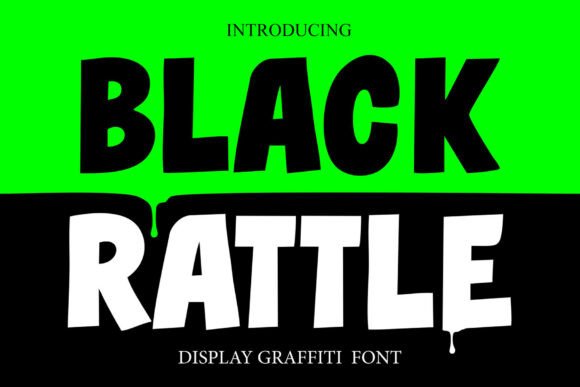
Unleashing Urban Energy: A Deep Dive into Black Rattle Font
I’ll never forget the design struggle that led me to discover Black Rattle Font. I was working on a project for a streetwear brand, and I needed a font that could capture the raw, edgy vibe of urban culture. After hours of scrolling through font libraries, I stumbled upon Black Rattle, and it was love at first sight. The bold, dripping-edge design instantly resonated with the brand’s aesthetic, and I knew I’d found the perfect fit.
So, what makes Black Rattle so special? Here are a few things that I absolutely love about this font:
- ✨ Authentic Graffiti Aesthetics: The heavy strokes and sharp forms genuinely capture the essence of street culture.
- ✅ Versatility: From posters and album covers to streetwear branding and gaming visuals, Black Rattle is incredibly versatile.
- 🎉 Feature-Rich: The font comes with uppercase, lowercase, numbers, punctuation, multilingual characters, and unique dripping alternates.
Of course, no font is perfect. A few minor quirks to keep in mind:
- 🤔 Learning Curve: If you’re new to using OpenType features or glyphs, it might take some time to get familiar with Black Rattle’s capabilities.
- ⚠️ Legibility at Small Sizes: Like many display fonts, Black Rattle can get a bit tricky to read at smaller sizes. It’s best used for headlines or larger text.
The Inspiration Behind Black Rattle
Black Rattle was born out of a passion for urban culture and graffiti art. The designer, inspired by the raw energy of city streets, aimed to create a font that could channel that same vibrancy and rebellious spirit. The result is a font that’s not just a tool but a statement piece for your creative projects.
Q: Does Black Rattle support multilingual characters?
A: Yes, Black Rattle includes multilingual characters, making it a versatile choice for global brands and projects.
Q: Is Black Rattle suitable for body text?
A: Due to its bold and dripping-edge design, Black Rattle is best used for headlines or display text. For body text, consider a more legible font.